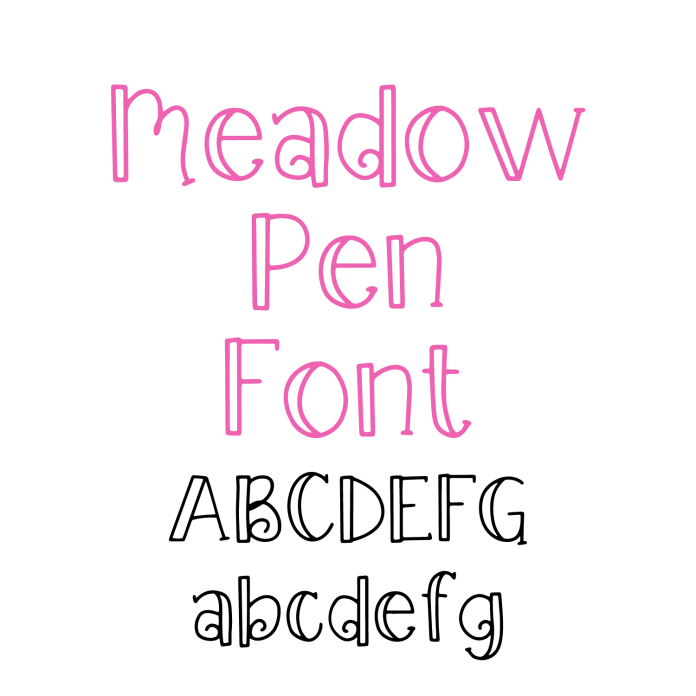
Meet Meadow Pen Font—a cute, casual handwritten font perfect for adding personality to your crafting projects! With its clean lines and playful charm, Meadow Pen is great for labels, quotes, stickers, greeting cards, and home decor. Designed to cut smoothly with your cutting machine, this font is both beginner-friendly and fun to use. Whether you're creating printables, custom gifts, or everyday DIY designs, Meadow Pen delivers a lighthearted, hand-drawn look that stands out. Add a personal touch to your projects with this versatile handwriting-style font. Download Meadow Pen Font today and bring your ideas to life!